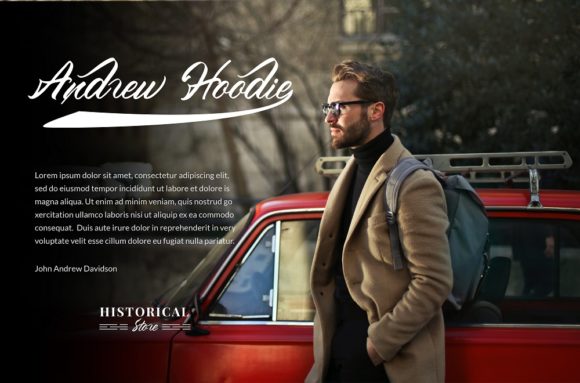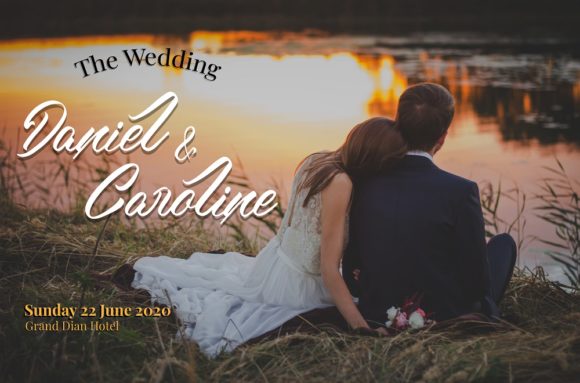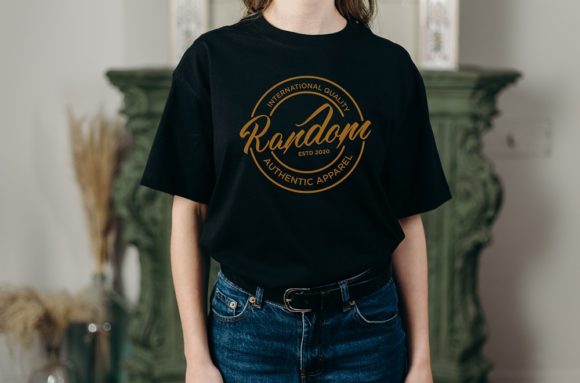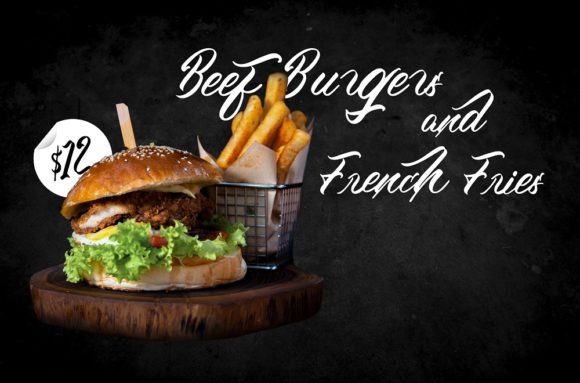
About Barbassy Font
Barbassy: Embrace the Timeless Handwritten Elegance
Introducing Barbassy, an incredibly distinct and delicate handwritten font that radiates timeless beauty. Its stunning appeal makes it the perfect choice for a wide range of designs, including wedding invitations, thank you cards, quotes, greeting cards, logos, and business cards, among others. With its elegant touch, Barbassy adds a sense of sophistication to any project that needs a handwritten flourish.
The allure of Barbassy lies in its distinct and delicate nature. Each letter is carefully crafted to maintain a sense of uniqueness, exuding elegance and charm that captivate the eye.
Designing with Barbassy is a delightful experience. Its flowing strokes and delicate curves bring authenticity and allure to your creations, making them truly special and captivating.
Fall in love with the versatility of Barbassy. Whether you’re designing for joyous celebrations or professional occasions, this font adapts effortlessly to suit your creative vision.
Gorgeous designs come to life with Barbassy’s timeless handwritten touch. Whether you’re crafting romantic wedding invitations or designing inspiring quotes, this font adds a touch of refinement that mesmerizes your audience.
In conclusion, Barbassy is more than just a font; it’s an incredibly distinct and delicate masterpiece that invites you to embrace the timeless allure of handwritten elegance. Let it be the heart of your most cherished projects, from romantic weddings to professional branding. With Barbassy as your trusted companion, your designs will exude sophistication and beauty. Allow this font to unlock the full potential of your creativity, and experience how it elevates your projects to new levels of exquisite charm. Fall in love with the enduring spirit of Barbassy, and let it guide you to create designs that leave a lasting impression on all who see them.